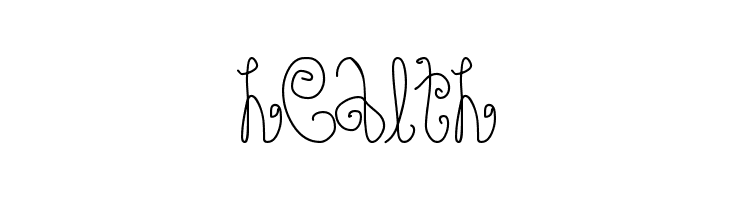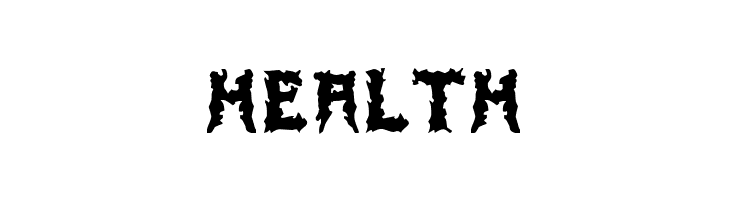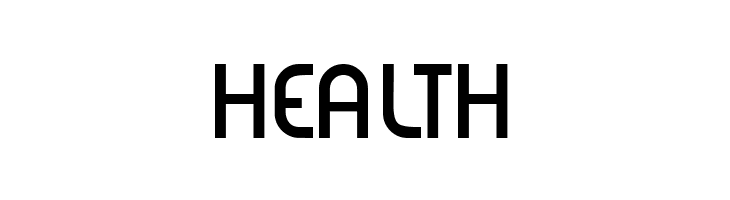
( Misti's Fonts - mistifonts.com/ )
A graceful calligraphic font with elegant loops and fluid strokes.
A classic Blackletter font with ornate, medieval-style letterforms.
A traditional blackletter font with ornate, angular strokes and gothic flourishes.
A traditional Blackletter font with ornate, medieval-inspired letterforms.
A classic Gothic-style font with ornate and intricate design elements.
A traditional blackletter font with ornate, angular letterforms and a medieval aesthetic.
A bold, modern sans-serif font with clean lines and a strong presence.
A classic Blackletter font with ornate, angular characters and historical elegance.
( Fonts by Ahmad Najiullah )
A decorative font with bold geometric shapes and intricate internal patterns.
( Fonts by Anomali Creative )
A playful, hand-drawn font with a whimsical and creative style.
( Fonts by Alistair Quietsch )
A decorative font with sinewy, intertwined strands creating a dynamic and fluid appearance.
A decorative script font with elegant, flowing curves and ornate details.
( Fonts by Kong Font )
A bold, playful font with thick, rounded characters perfect for fun and creative projects.
( Fonts by GNU )
A bold, monospaced font with uniform stroke width and rounded edges, ideal for technical use.
( Fonts by GNU )
A bold, oblique, monospaced font with a modern and clean design.
( Fonts by Display Studio )
A whimsical serif font with decorative swirls and classic elements.
A dynamic and fluid handwritten script font with elegant, flowing letters.
A classic and elegant script font with flowing, cursive letterforms.
A lively handwritten font with expressive, fluid strokes and a casual elegance.
A modern, high-contrast serif font with elegant, elongated characters.
A bold, flowing script font with elegant curves and a friendly style.
A playful and elegant handwritten script with smooth, flowing characters.
A bold, playful handwritten font with dynamic strokes and a whimsical flair.
A playful script font with decorative swashes and a handwritten feel.
A dynamic and expressive script font with bold, artistic brush strokes.
A dynamic and flowing script font with elegant cursive letterforms.
A modern, rounded font with a geometric structure and consistent stroke width.
A modern, connected font with bold, rounded characters and a playful style.
A playful, bold, and rounded handwritten font with a lively and informal style.